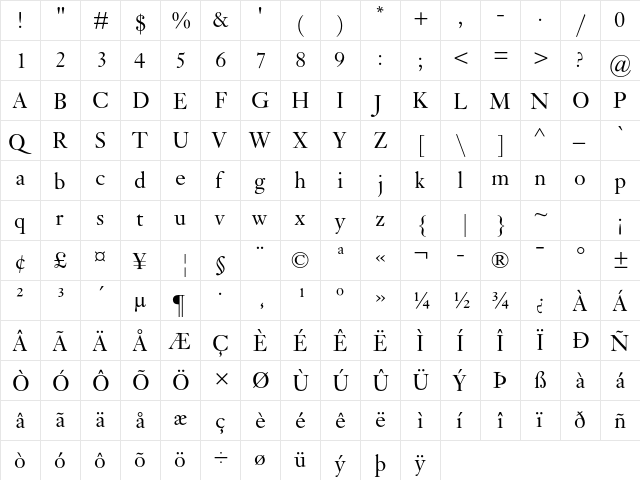
Janson MT Std Regular
Design Context for Janson MT Std Typeface
Janson MT Std is a composed and adaptable typeface that performs quietly and consistently across a wide range of design contexts.